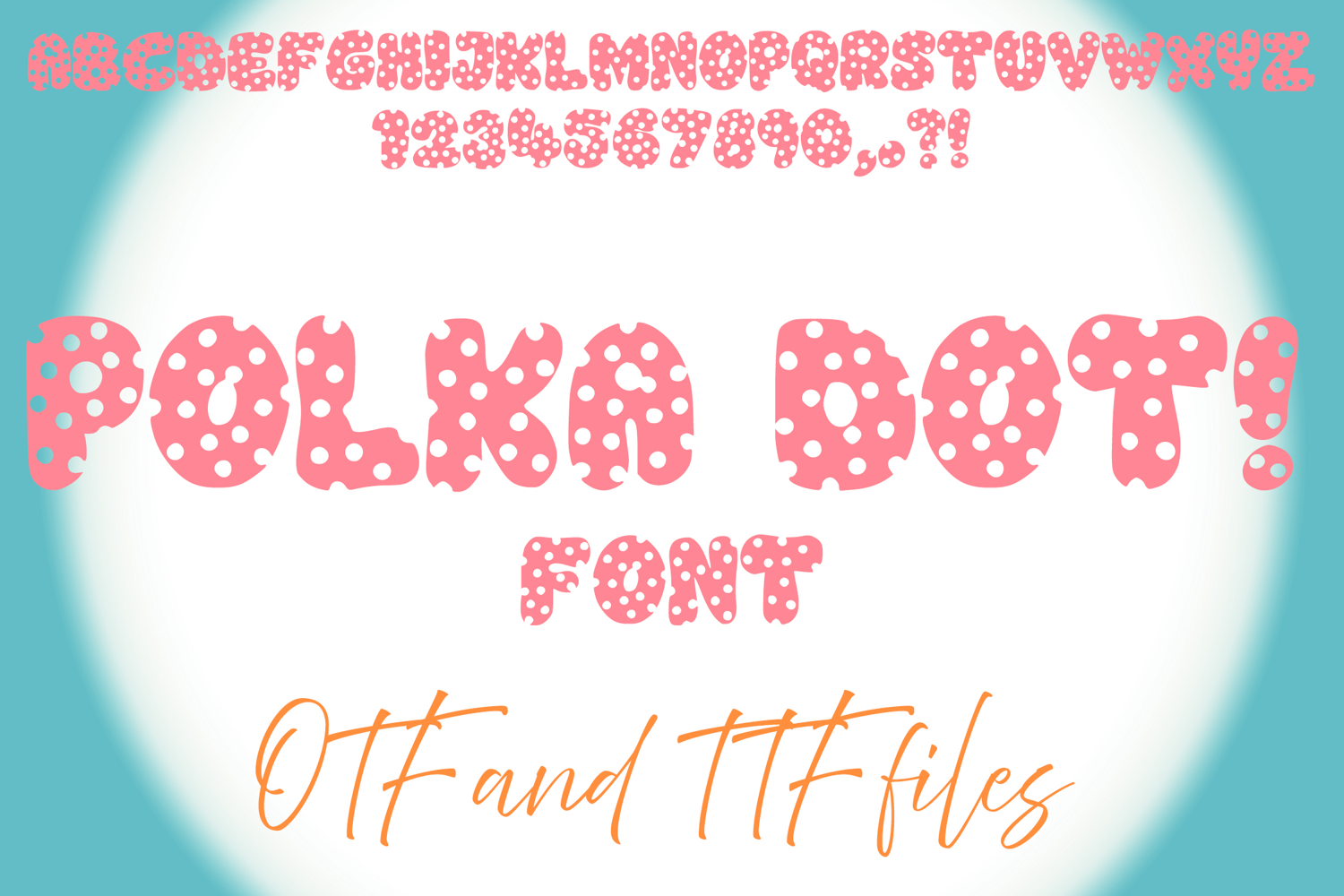
Polka Dot Spotty Font Letter Alphabet ABC Cartoon OTF TTF Typeface For Children's IllustrationÂ
Contains OTF and TTF file. Capital letters, !?,. and numbers only.